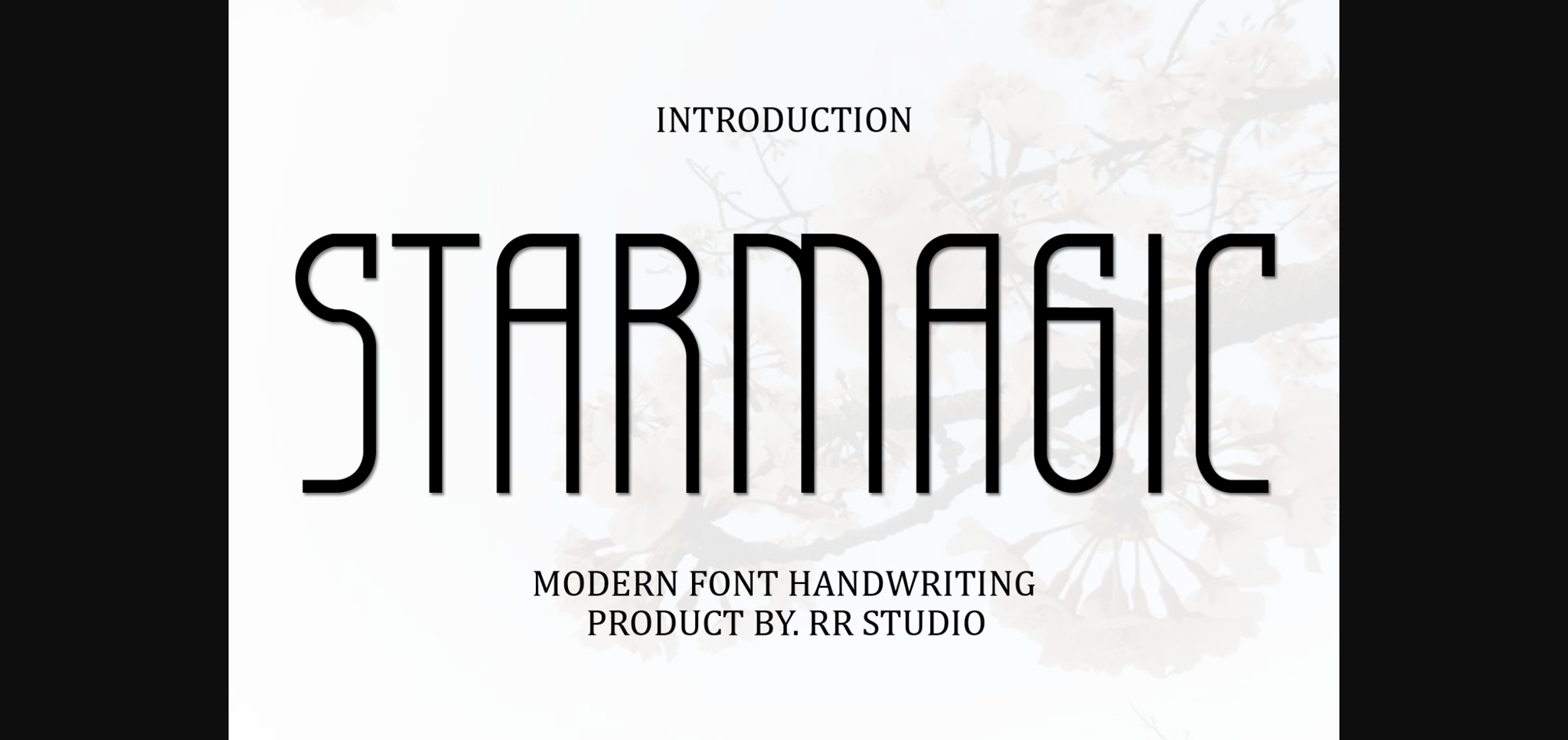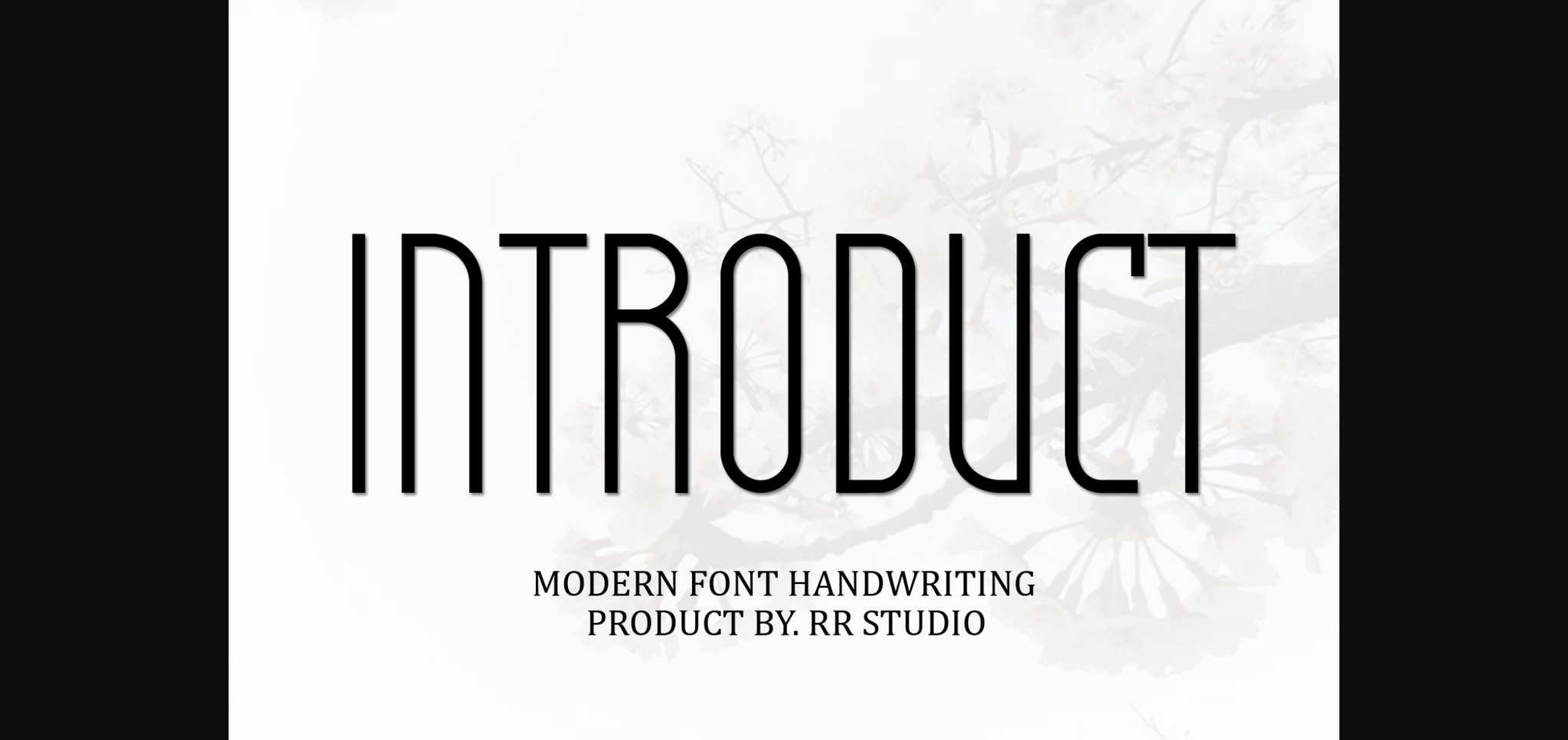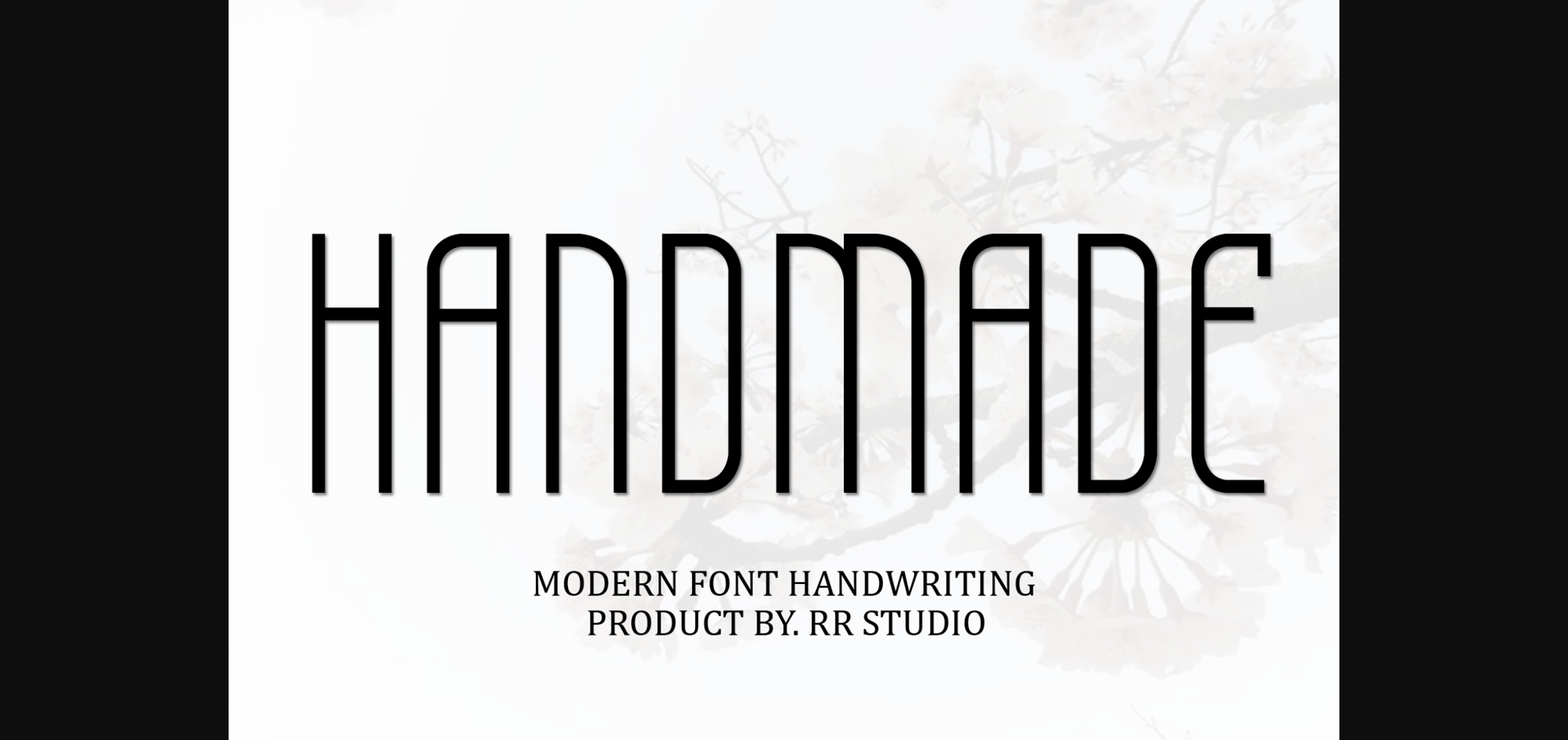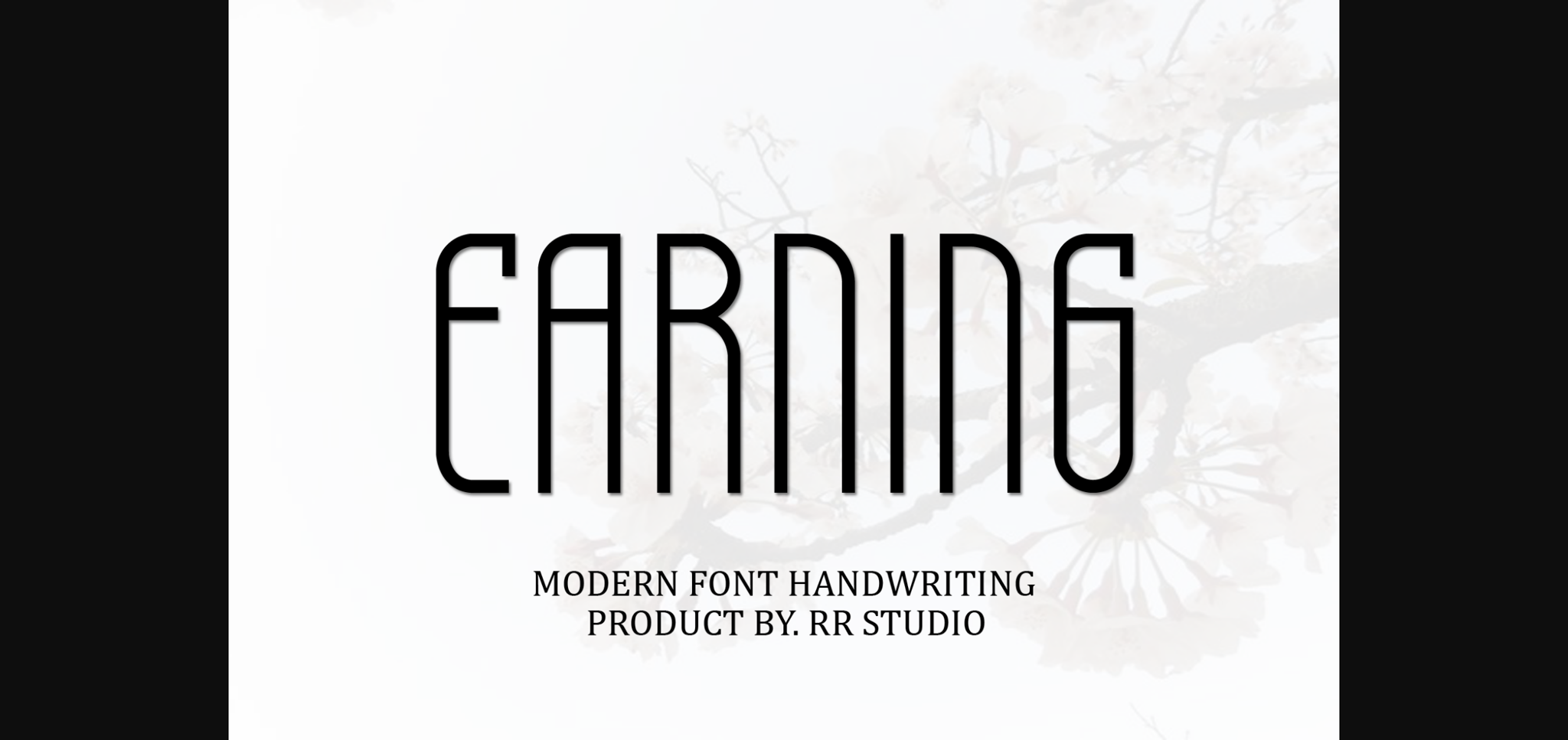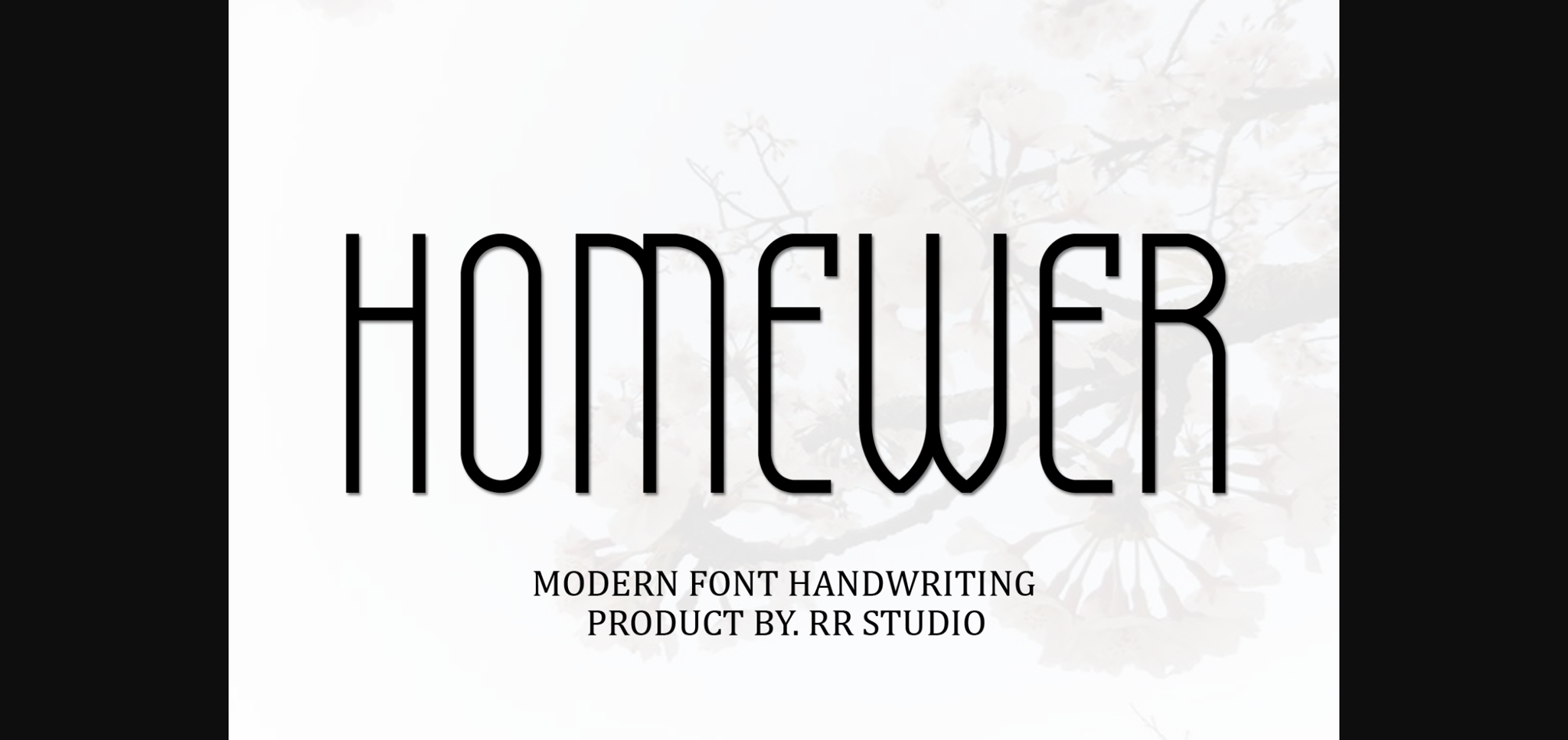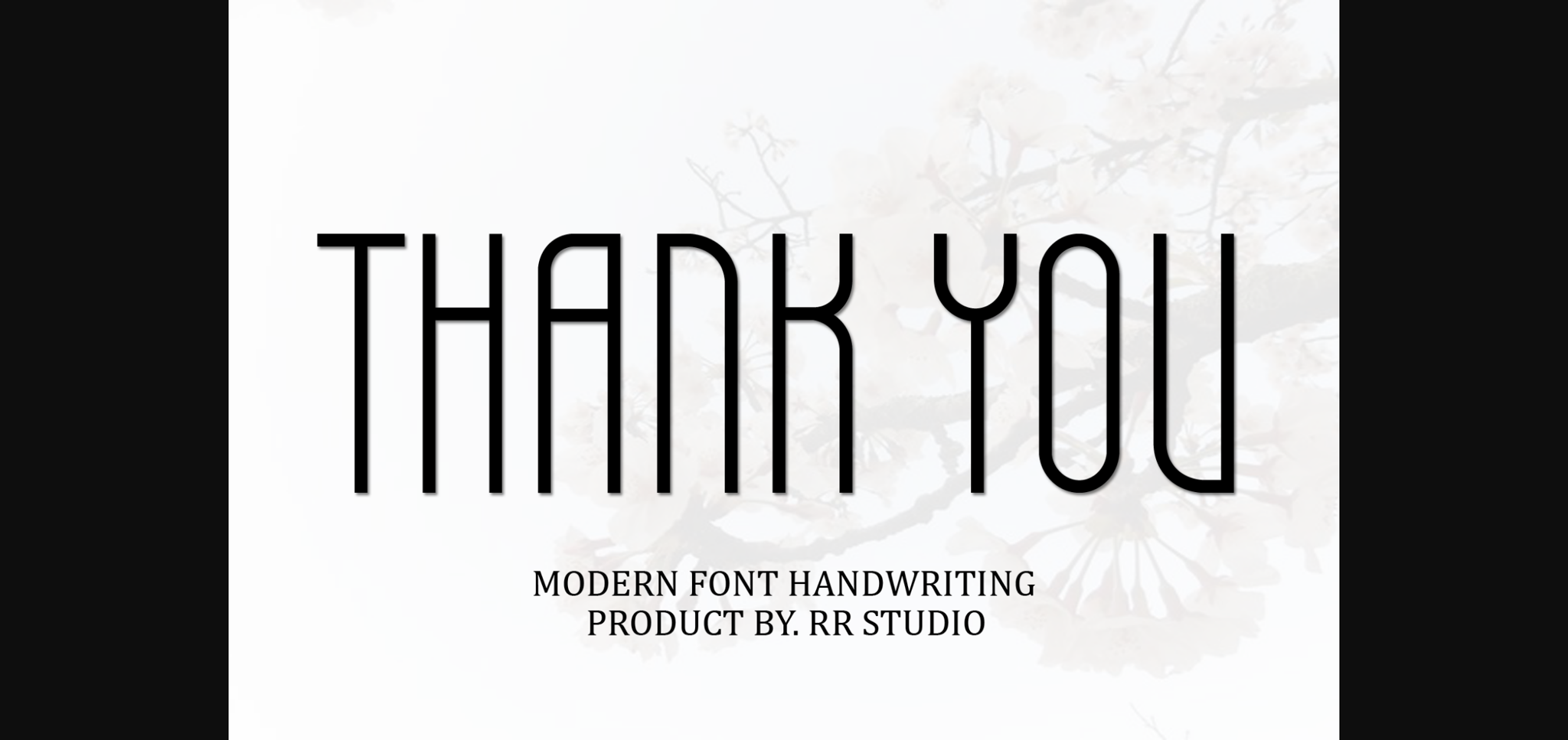
Starmagic Font
About Starmagic Font
Starmagic is a contemporary sans-serif font characterized by its clean lines and minimalist design. With a balanced and straightforward appearance, it offers excellent legibility in both digital and print contexts. Ideal for various projects, Starmagic brings a sense of clarity and modernity to any typographic composition with its simplicity and versatility.